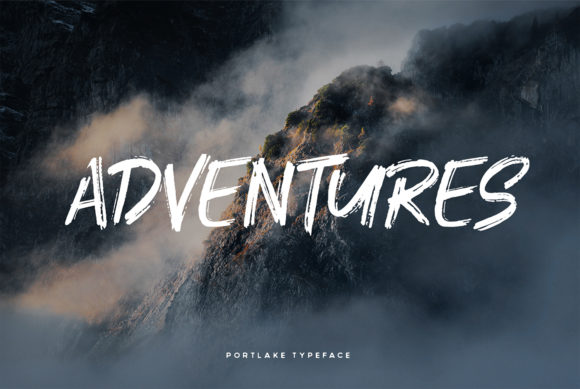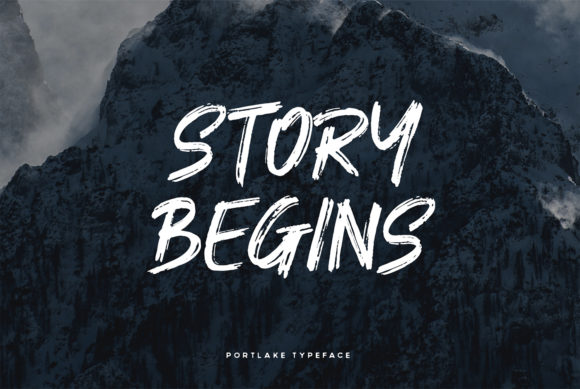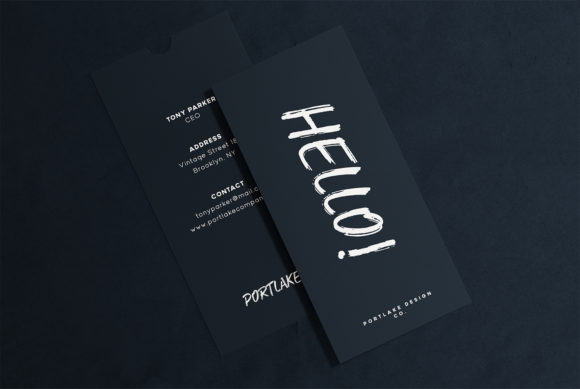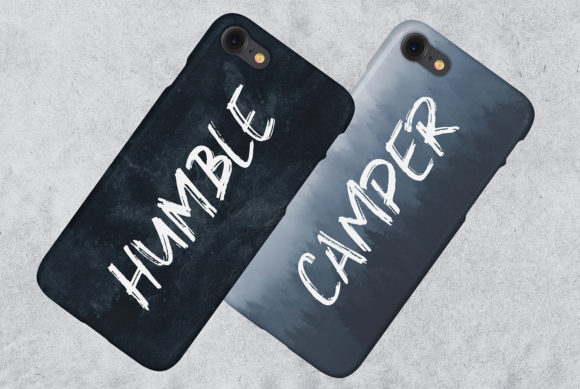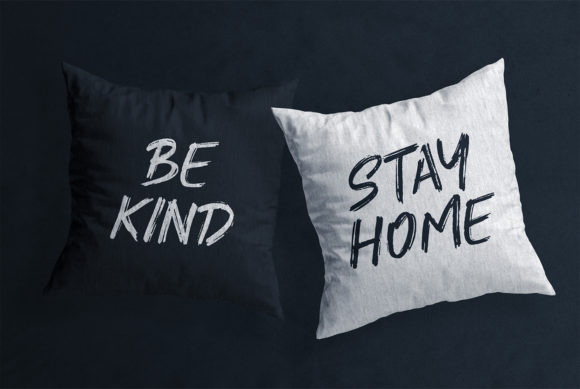
Introduction to Portlake Font Font
Fonts play a crucial role in design, and the Portlake Font font is a typeface that brings both character and versatility to any project. Whether you’re working on a branding project, a website, or a print design, the Portlake Font font offers a unique style that can elevate your work.
Portlake is a hand crafted brush typeface.
This great all caps font will add a strong personality to any crafting project It will look outstanding in any context, whether itβs being used on busy backgrounds or as a standalone headline.
Key Features of Portlake Font Font
Why Choose Portlake Font Font?
The Portlake Font font is more than just a typeface β it’s a design tool that helps you communicate your message with style and clarity. Its unique character set and versatile design make it suitable for a wide range of applications, from elegant invitations to bold headlines.
With its carefully crafted letterforms and balanced proportions, the Portlake Font font ensures readability and visual appeal across all mediums.
What makes Portlake Font font special?
The Portlake Font font stands out with its unique design, exceptional readability, and versatility across various design applications.